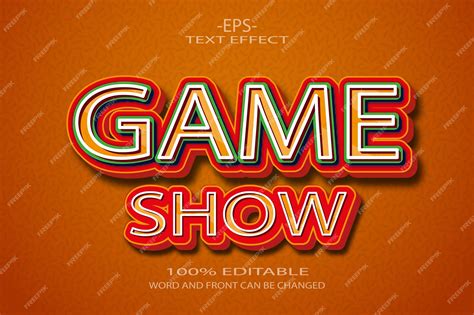
Unleash the Thrill of the Game with Fascinating Game Show Style Fonts
Do you want to grab your audience's attention and bring more excitement to your projects?
Are you tired of using mundane fonts that fail to convey the thrill of competition and entertainment?
If so, it's time to unleash the thrill of the game with fascinating game show style fonts!
These fonts are perfect for anything from sports broadcasts and game shows to advertising, presentations, and more. They add a sense of excitement and energy that is hard to match with other fonts.
But what makes these fonts so captivating? Well, for starters, they often feature flashy designs, bold colors, and dramatic lettering that conveys power and dynamism.
Take, for example, the classic game show font, which is instantly recognizable thanks to its bold, 3D letters and colorful accents. This font is perfect for capturing the spirit of competition and creating a sense of anticipation and excitement.
In fact, studies have shown that using exciting fonts can boost engagement and help people remember information more effectively than standard fonts. So, if you want to make a lasting impression on your audience, game show style fonts are definitely worth considering.
And the best part? These fonts are widely available online, so you can easily download and use them in your projects today.
In conclusion, if you're looking to inject some fun and excitement into your designs, game show style fonts are the way to go. So why not give them a try and see how they can unleash the thrill of the game for yourself?
In the world of game shows, fonts play a significant role in conveying a sense of excitement, anticipation, and thrill. Game show style fonts have been used for decades and have now become a beloved part of popular culture. But it's not just limited to game shows; these fonts are used in various industries such as advertising, graphics design, and web development.
What are Game Show Style Fonts?
Game show style fonts are bold, attention-grabbing, and have a distinct sense of energy. They often feature exaggerated size, curvature, and intricate details that give them a theatrical look. These fonts are designed to convey a sense of action, speed, and competition, making them perfect for games, quizzes, and contests.
Why Use Game Show Style Fonts?
The primary reason to use game show style fonts is their ability to grab people's attention. These fonts are unique and convey a sense of excitement that makes them perfect for any project that seeks to captivate an audience quickly. Whether you use them in a logo, header, poster, or other designs, game show style fonts can help your content stand out from the crowd.
How to Use Game Show Style Fonts?
There are different ways to incorporate game show style fonts into your projects. Depending on your purpose and design goals, you may use these fonts as headlines, subheadings, titles, body text, or even call-to-action buttons. The key is to choose the right font and combine it with other design elements such as colors, graphics, and layout for maximum impact.
Top Game Show Style Fonts
| Font Name | Characteristics | Pros | Cons |
|---|---|---|---|
| Press Start 2P | Gaming, Retro, Pixelated | Distinctive, playful, nostalgia-inducing | May not suit all types of designs |
| Carnivalee Freakshow | Hand-drawn, Vintage, Circus | Quirky, charismatic, eye-catching | Not suitable for formal or serious designs |
| Superstar M54 | Bold, Athletic, Sports | Dramatic, impactful, versatile | May appear too aggressive for some designs |
| ITC Fenice Std | Clean, Modern, Geometric | Elegant, professional, easy-to-read | May not be very distinctive or memorable |
Best Practices for Using Game Show Style Fonts
To get the most out of game show style fonts, follow these best practices:
- Choose a font that aligns with your brand's personality and message.
- Combine different fonts and styles for contrast and emphasis.
- Avoid using too many fonts in one design; stick to two or three at most.
- Ensure that the font is legible and easy to read, especially from a distance.
- Use font size, weight, and style to create hierarchy and emphasize important information.
Game show style fonts are a fun and exciting way to add personality and character to your designs. They can evoke a myriad of emotions, from nostalgia to competitiveness, and are ideal for projects where speed and action are essential. By following the best practices for using these fonts, you can create designs that are memorable, impactful, and effective in capturing your audience's attention.
Unleash the Thrill of the Game with Fascinating Game Show Style Fonts
Are you tired of using the same old boring fonts in your games? Do you want to add some excitement and thrill to your game by using captivating game show style fonts? Look no further! We've got you covered.
Yes, game show style fonts can be customized to suit your specific needs and preferences. You can adjust the size, color, and style of the font, and even add special effects like drop shadows or outlines to make it stand out even more.